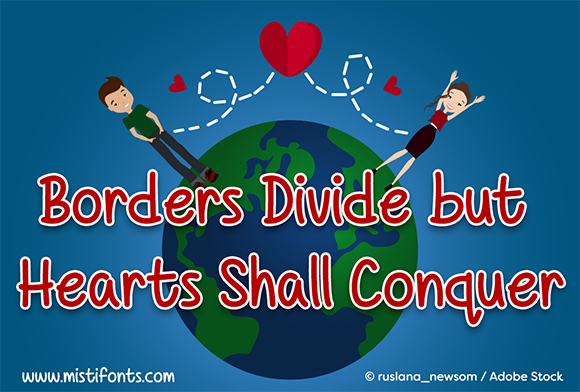
The Perfect Font for Your Creative Masterpiece
Have you ever sat at your desk, staring blankly at a blank page, waiting for the perfect font to come to life? It’s a moment we’ve all been in – the moment of creative uncertainty. But what if I told you that there’s a font that can bring your ideas to life, making them stand out in a crowded space?
Enter Ameliya Font, a lovely script font that’s designed to add a touch of whimsy and playfulness to your most creative projects. With its charming, dancing characters, Ameliya Font is the perfect addition to any designer’s toolkit. Whether you’re working on a wedding invitation, a children’s book, or a social media campaign, this font is sure to bring a smile to your face and a touch of elegance to your design.
For designers, Ameliya Font is a valuable asset that can help take your work to the next level. Its unique character and versatility make it a must-have for any creative project, and its ease of use makes it accessible to designers of all levels.
Ameliya Font Key Features
- Font Family: Ameliya, Ameliya Bold, Ameliya Italic, Ameliya Bold Italic
- Character Set: Latin, Cyrillic, Greek
- Unique Characteristics: Elegant, modern design with subtle flair; suitable for fashion, luxury, and high-end branding
Ameliya Font Review
I recently had the chance to work with the Ameliya font, and I must say it’s a beautiful addition to any design project. ✨ One of the things that stands out to me is its elegant and refined aesthetic. The font is perfect for creating a sophisticated and luxurious feel in your designs.
Here are some of the things that work well with Ameliya Font:
- ✨ Elegant and refined aesthetic
- ✨ Perfect for creating a sophisticated and luxurious feel
- ✨ Works well for both digital and print designs
- ✨ Available in a range of weights and styles
However, I did encounter a few limitations while working with Ameliya Font:
- ⚠️ Some of the weights and styles can be difficult to read in smaller font sizes
- ⚠️ The font may not be suitable for projects that require a more playful or casual tone
Overall, I’m impressed with the Ameliya font and would definitely recommend it for projects that require a touch of elegance and sophistication. However, be mindful of the limitations and make sure to test the font in different contexts before finalizing your design.
Common Use Cases for Ameliya Font
The Ameliya font is commonly used in various design projects, including:
2. Branding and marketing materials.
3. Editorial and publishing projects.